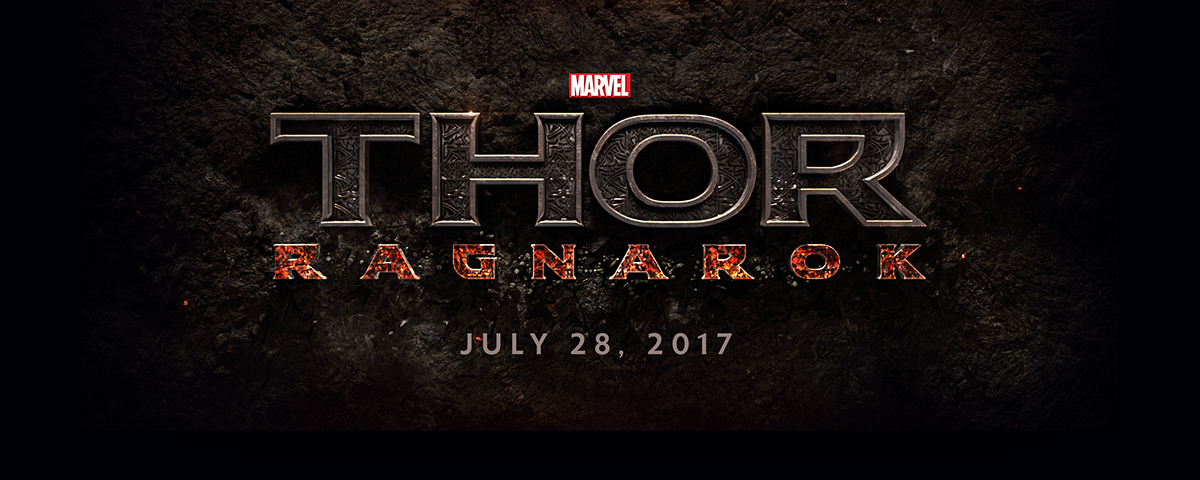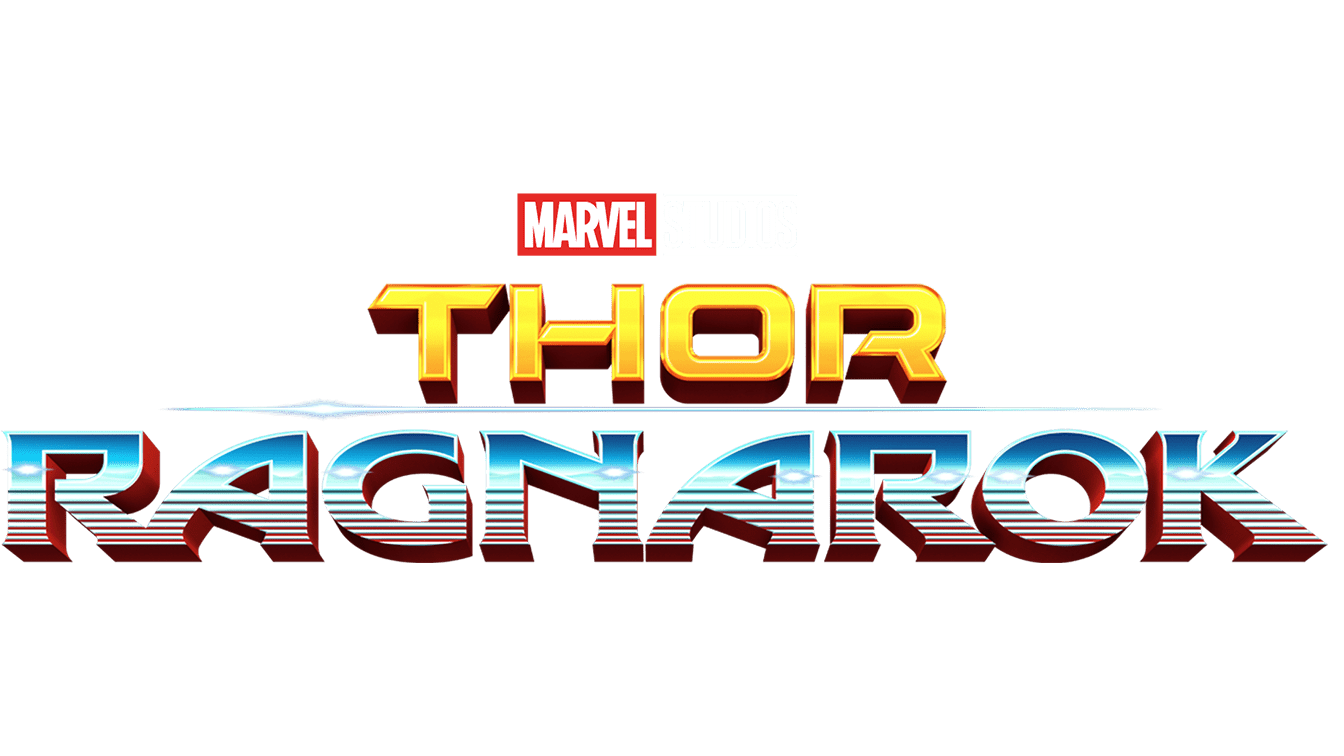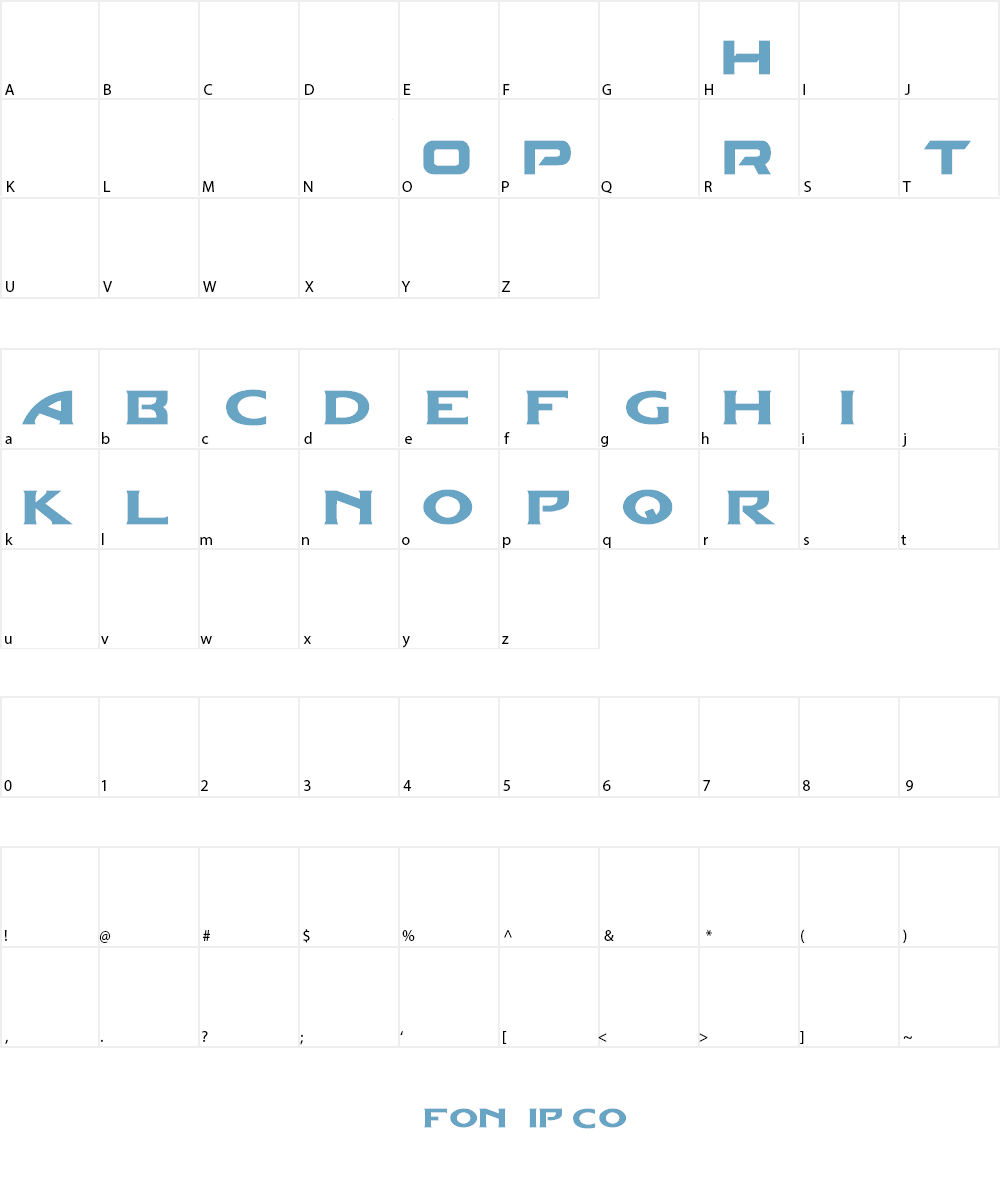
Thor Ragnarok Font
About thor ragnarok font thor.
Thor ragnarok font. The font used for the thor part of the film title is dameron regular created by iconian fonts. Ragnarok fontspace si estas leyendo esto. It has created by daniel zadorozny and iconian fonts took the charge for designing and releasing it for the first time on 23 february 2016.
Truetype 53 glyphs 242 characters. Font based in the logo marvel thor. Ragnarok is a 2017 american superhero film based on the marvel comics character thor produced by marvel studios and distributed by walt disney studios motion pictures.
Thor ragnarok by fontstudio lab is a font based on the title logo from the movie thor. Ragnarok is a 2017 american superhero film based on the marvel comics character thor produced by marvel studios and distributed by walt disney studios motion pictures. Contact about thor ragnarok font.